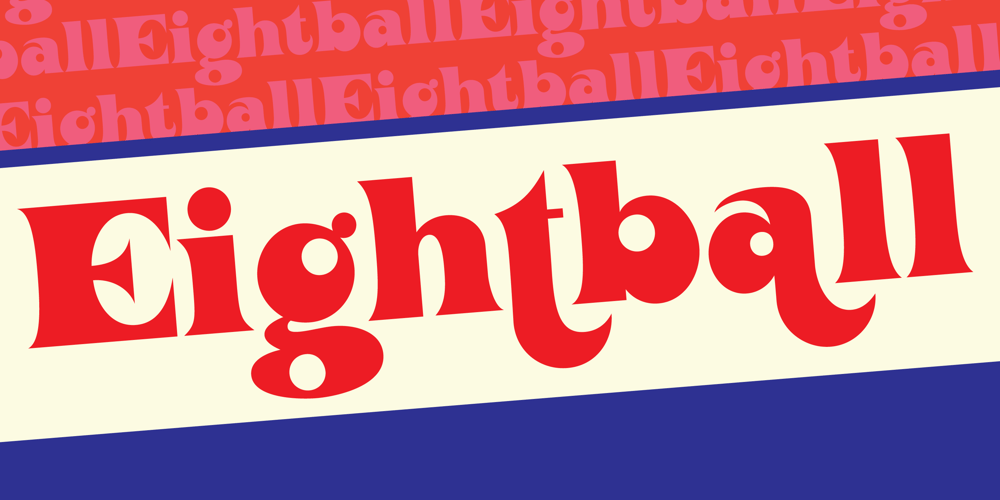
Orotund Font Family was designed by Rebecca Alaccari and published by Canada Type. Orotund contains 1 styles and family package options. This is the digitization and considerable expansion of the cheeky and enormously popular film type Eightball, one of the most widely used faces of the 1970s and 1980s.Round and happy like a bouncy ball, these are letters after a sign maker’s own heart. Seen everywhere in its film version, from bingo and pool hall parlor signs to comic books, now this computer version opens the door for the happy roundness to be used on a much larger scale by anyone who designs layouts on a computer.The original film type included a few alternates. We included them, but we added many more as well. So make sure to check out the various OpenType features in your program while using this font.Eightball is great for a variety of applications, including signage, rubber stamps, poster design, titling, cartoons, comics, and pretty much anything where happy and round fit in.